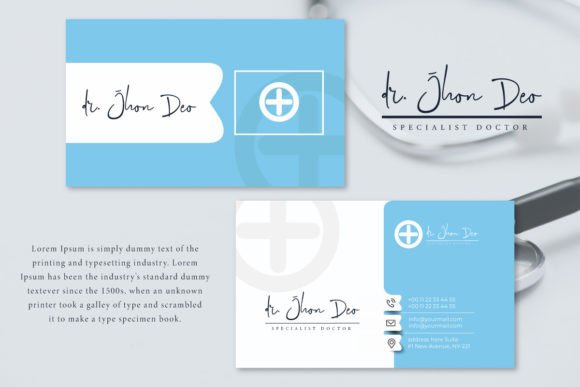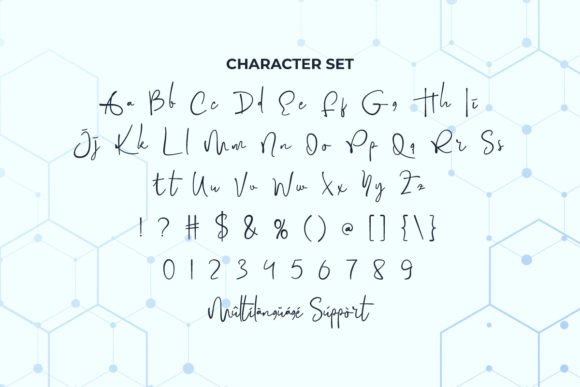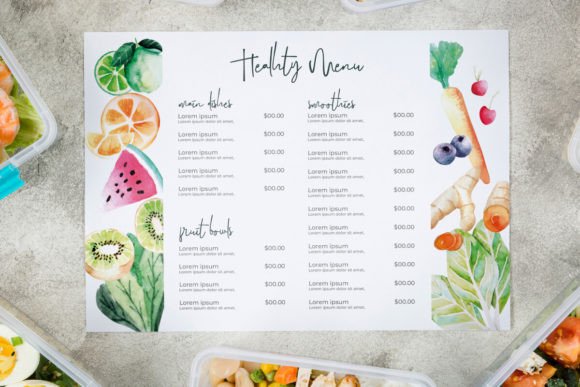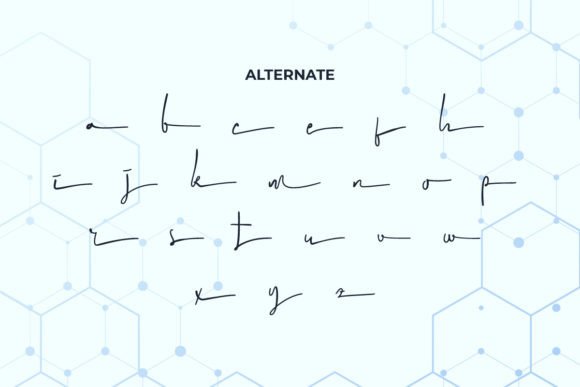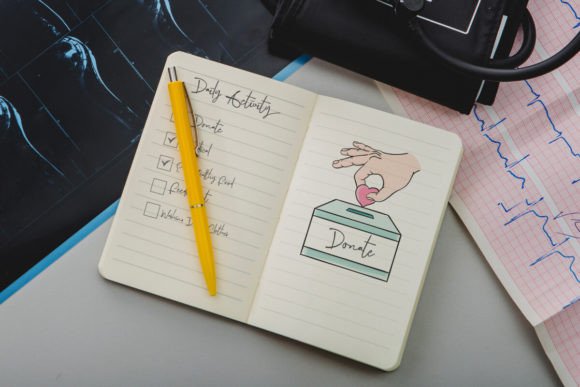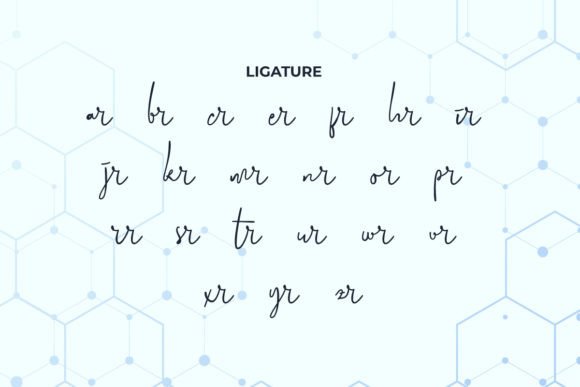
Introducing Doctor Mark: The Ultimate Classy Handwritten Font
Are you tired of using the same old fonts for your creative projects? Look no further! Doctor Mark, a stunning handwritten font created by CalligraphyFonts, is here to elevate your designs to the next level. Inspired by beautiful signature writing, this irregular bold and thin font is perfect for adding a touch of elegance and sophistication to your work.
What Makes Doctor Mark Special?
Doctor Mark is a unique and versatile font that can be used for a wide range of applications. Its irregular bold and thin strokes give it a distinctive, hand-crafted look that’s sure to grab attention. Whether you’re designing a brand logo, business card, invitation, label, or website, this font is guaranteed to add a touch of class and style.
Doctor Mark is ideal for designers and crafters who want to add a personal touch to their work. Here are some ideas for using this amazing font:
- Brand Logo: Create a memorable and stylish logo for your business or brand with Doctor Mark.
- Business Card: Stand out from the crowd with a beautifully designed business card featuring Doctor Mark.
- Invitation: Make your invitations, whether for a wedding, birthday, or other special occasion, truly special with this elegant font.
- Label and Packaging: Add a touch of sophistication to your product labels and packaging with Doctor Mark.
- Magazine Catalog: Use Doctor Mark to add a stylish and eye-catching element to your magazine or catalog.
- Menu: Create a memorable dining experience with a menu designed using Doctor Mark.
- Custom Design: Let your creativity shine with custom designs, such as posters, flyers, and brochures, featuring Doctor Mark.
- Quote and Title: Add emphasis and style to your quotes and titles with this beautiful handwritten font.
- Stationery: Elevate your stationery, including notebooks, journals, and planners, with Doctor Mark.
- Website: Use Doctor Mark to create a unique and stylish website that reflects your brand’s personality.
Why Choose Doctor Mark?
There are many reasons why Doctor Mark stands out from other fonts:
- Unique and Handcrafted: Each letter and stroke has been carefully crafted to give Doctor Mark its distinctive look.
- Versatile: This font can be used for a wide range of applications, from digital to print.
- Elegant and Sophisticated: Doctor Mark adds a touch of class and style to any design.
- Easy to Read: Despite its elegant look, Doctor Mark is easy to read, making it perfect for body text and headlines.
Tips for Using Doctor Mark Effectively
To get the most out of Doctor Mark, here are some tips:
- Pair with Other Fonts: Combine Doctor Mark with other fonts to create a unique and visually appealing design.
- Experiment with Colors: Try out different colors to find the perfect match for your design.
- Play with Sizes: Experiment with different font sizes to create visual hierarchy and emphasis.